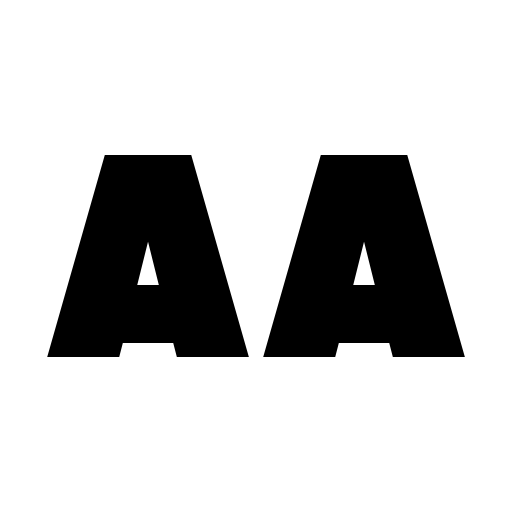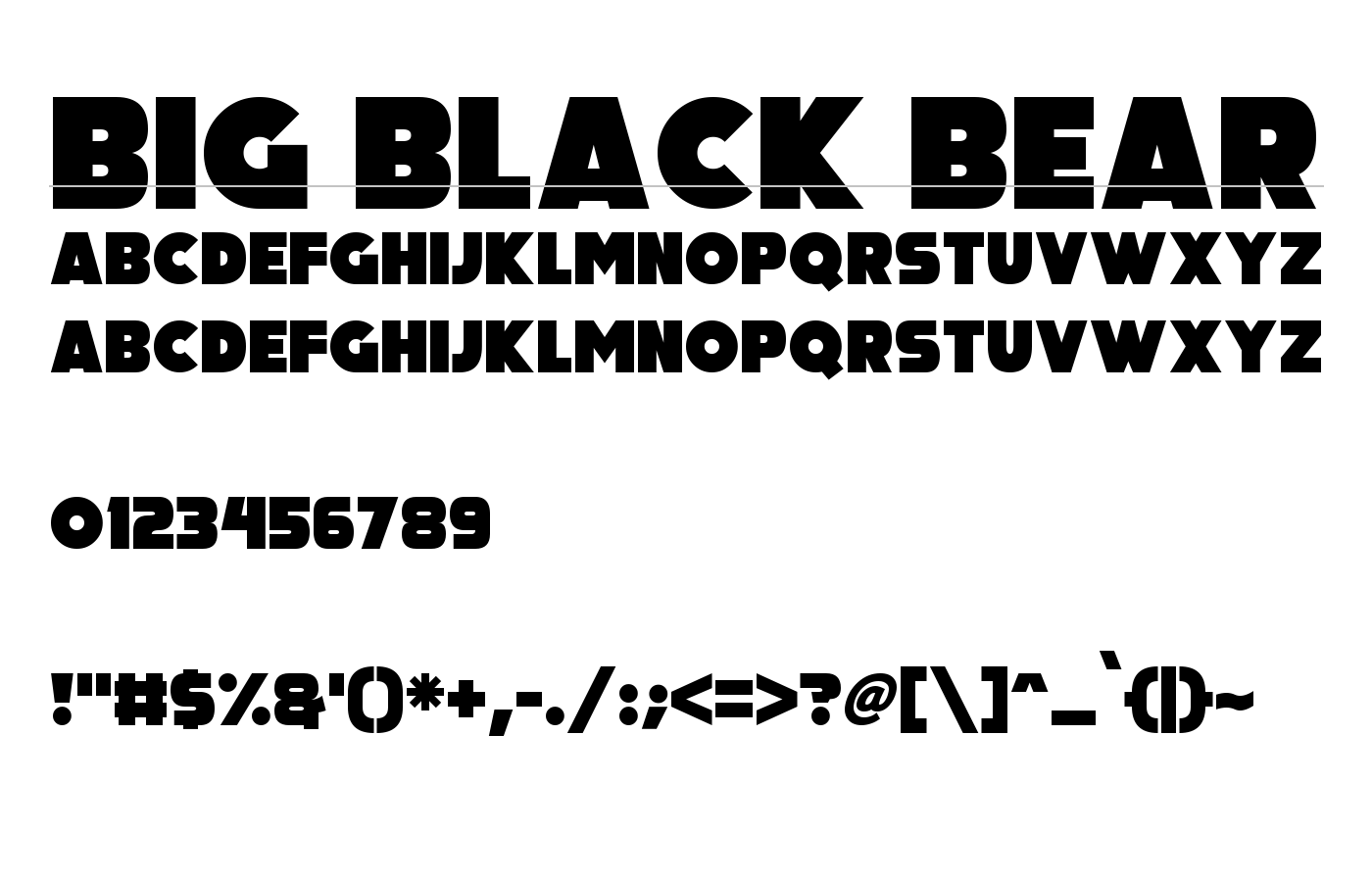
Big Black Bear is a bold, sans serif font with a strong, chunky appearance that commands attention. Its high weight and wide letterforms create a powerful and confident feel, making it ideal for impactful headlines, logos, and branding that need to stand out. This font’s playful yet sturdy design works well for eye-catching posters, packaging, and any project aiming for a modern, bold statement.
Big Black Bear Font
About Big Black Bear Font